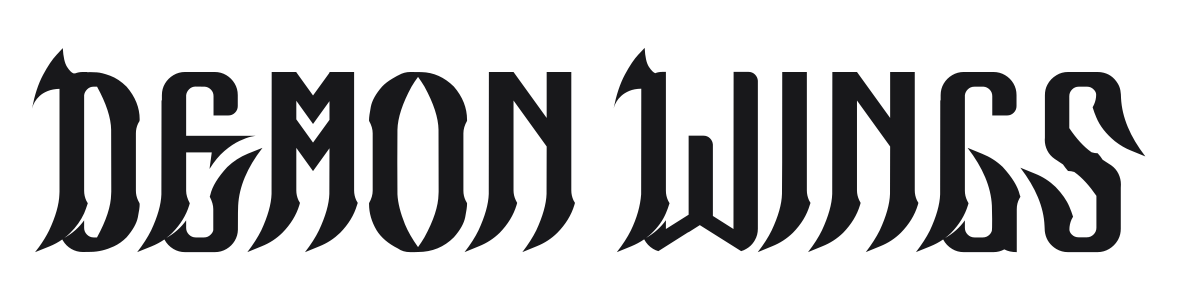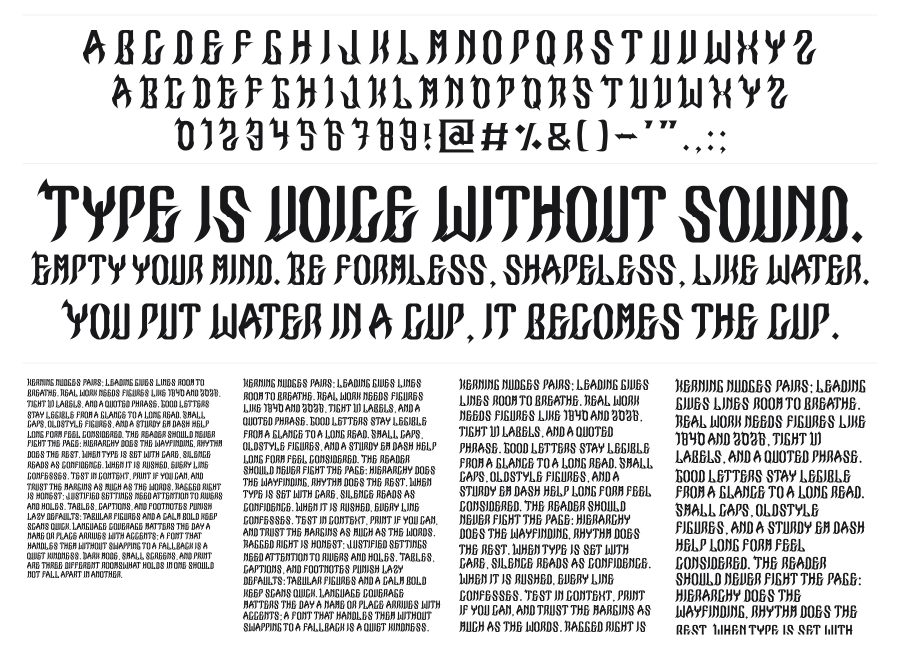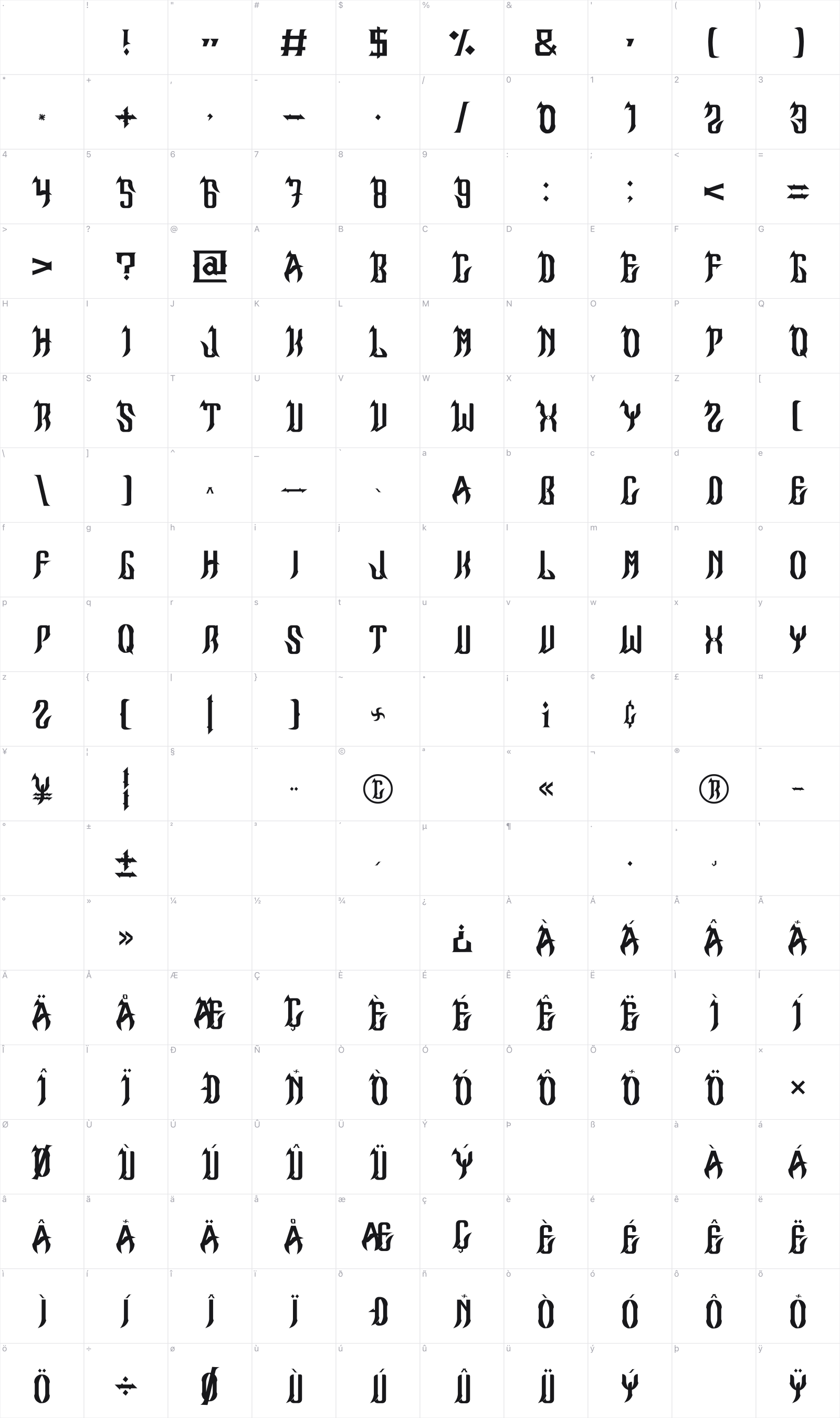
Demon Wings
Demon Wings is a bold gothic display font that fuses blackletter tradition with sharp, aggressive edge. Thick stems slice into hairline diagonals ending in dagger-like points, giving every character a distinctly menacing silhouette. At large sizes it commands attention on posters, album covers, band logos, and anything that needs a dark or metal-influenced presence.